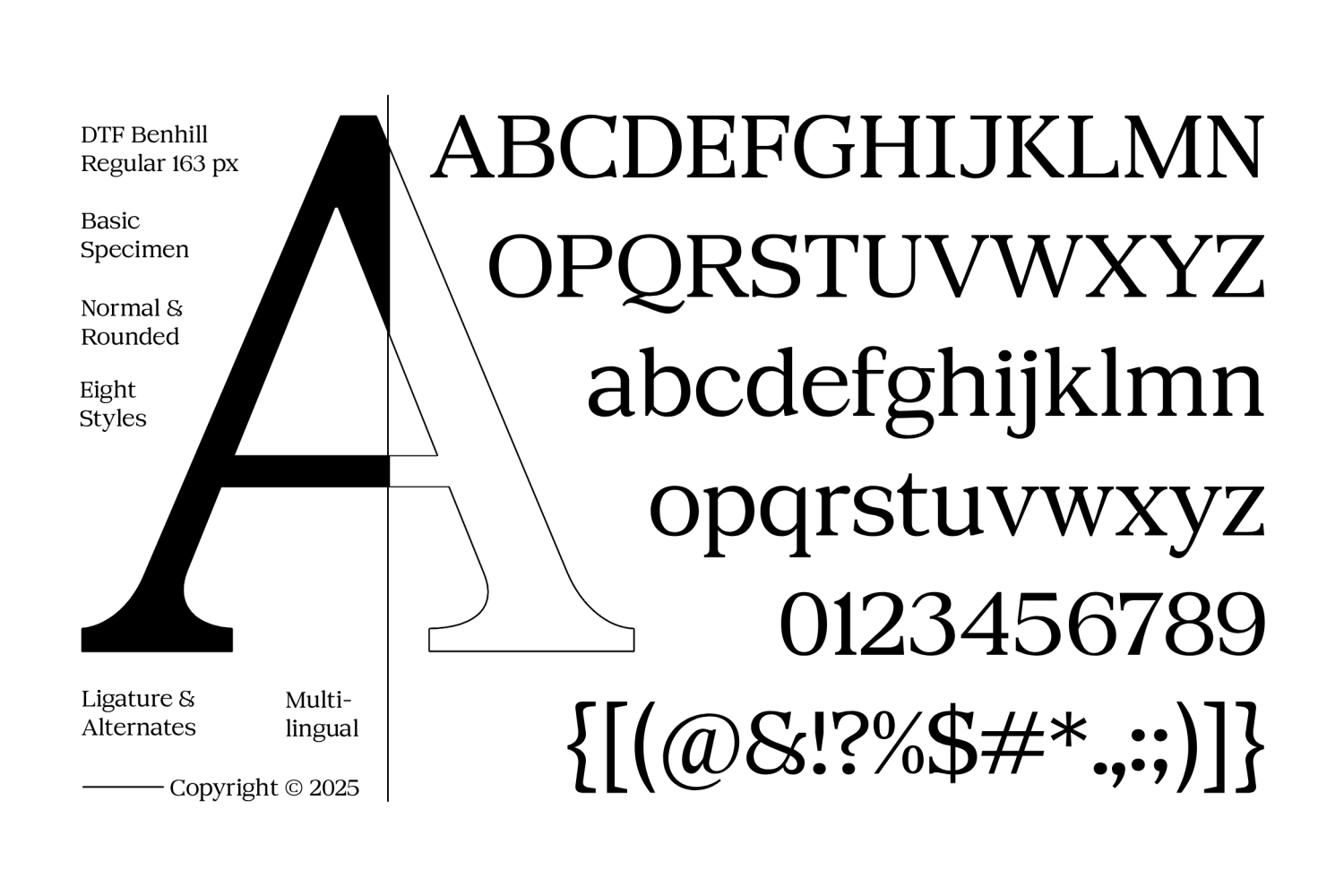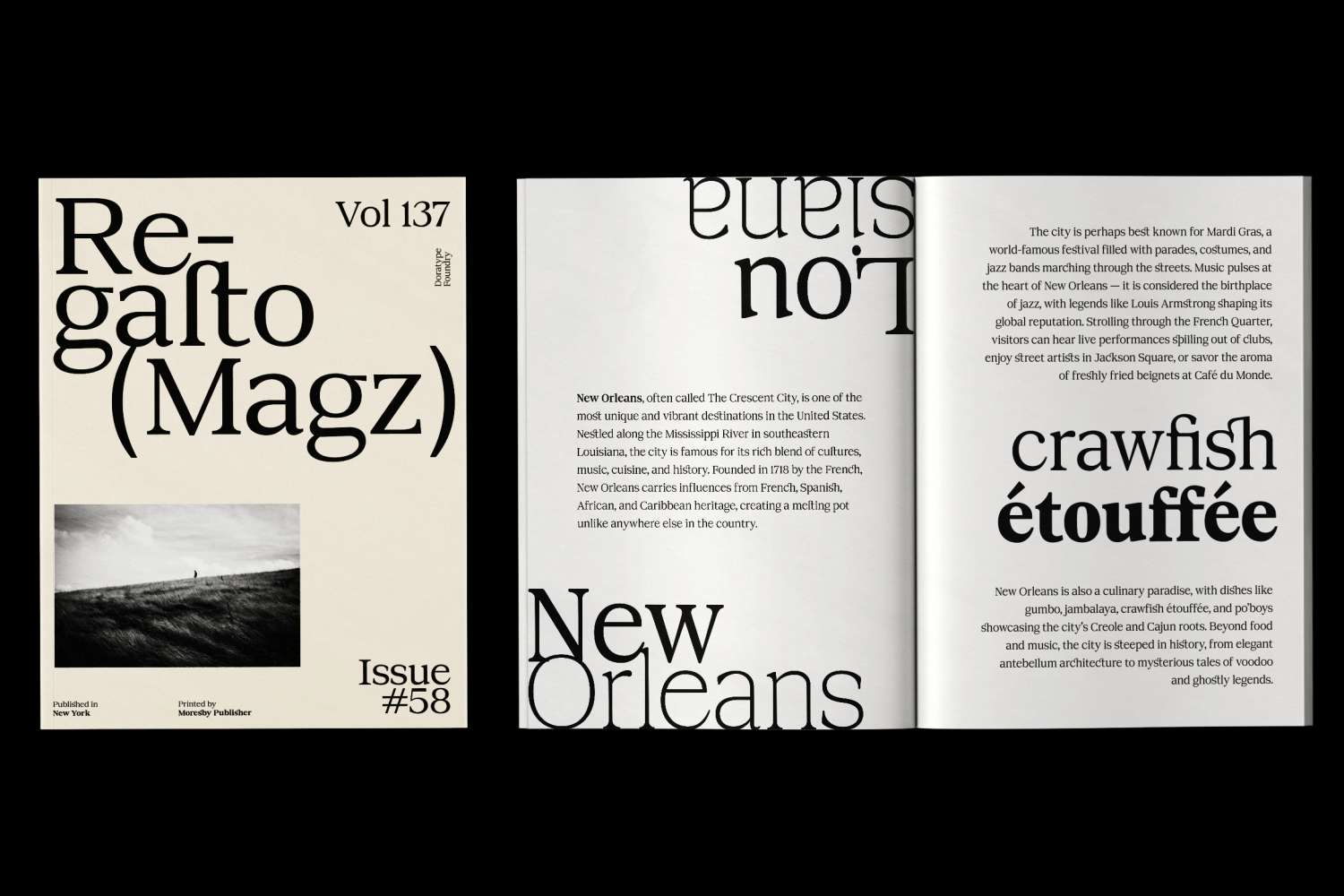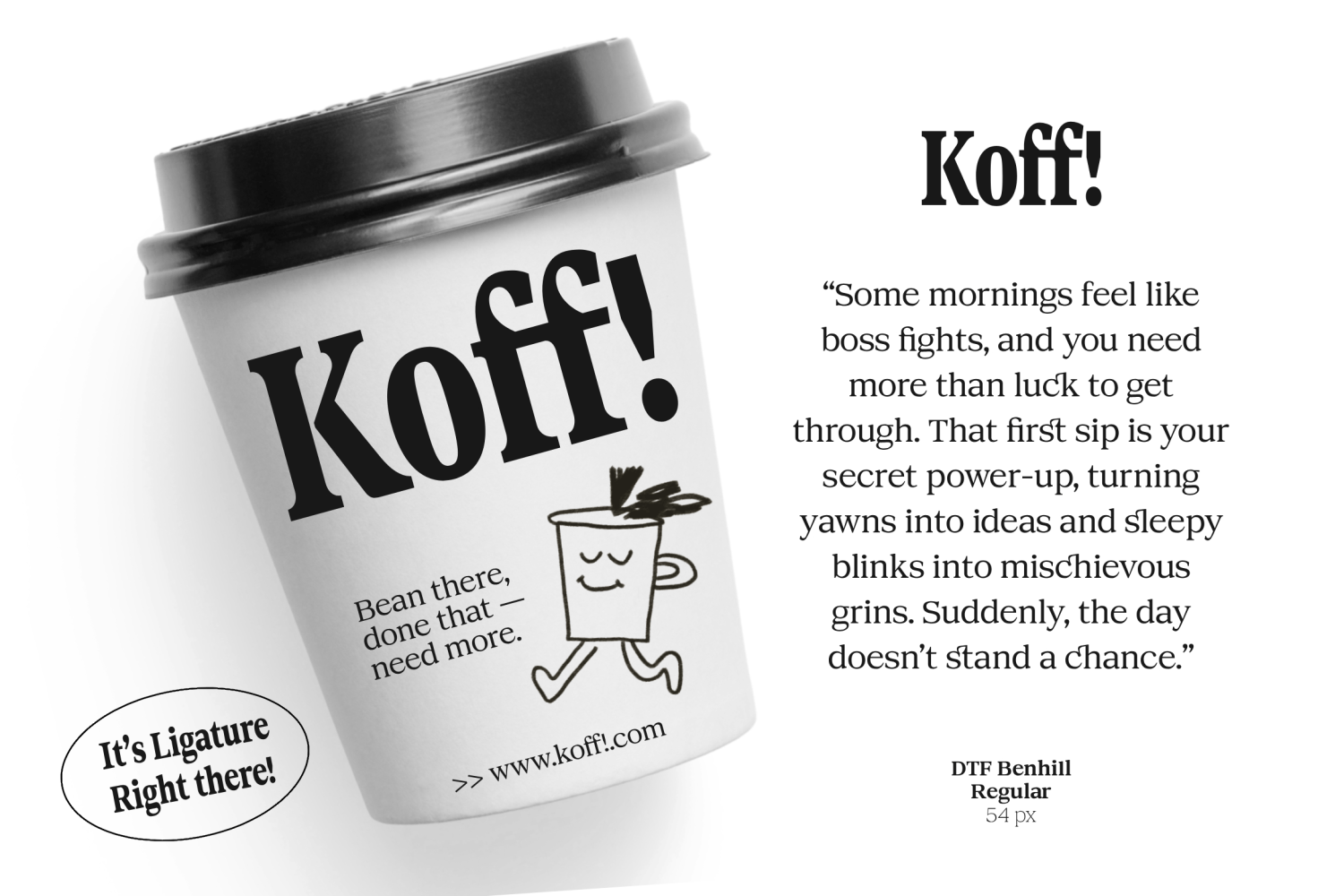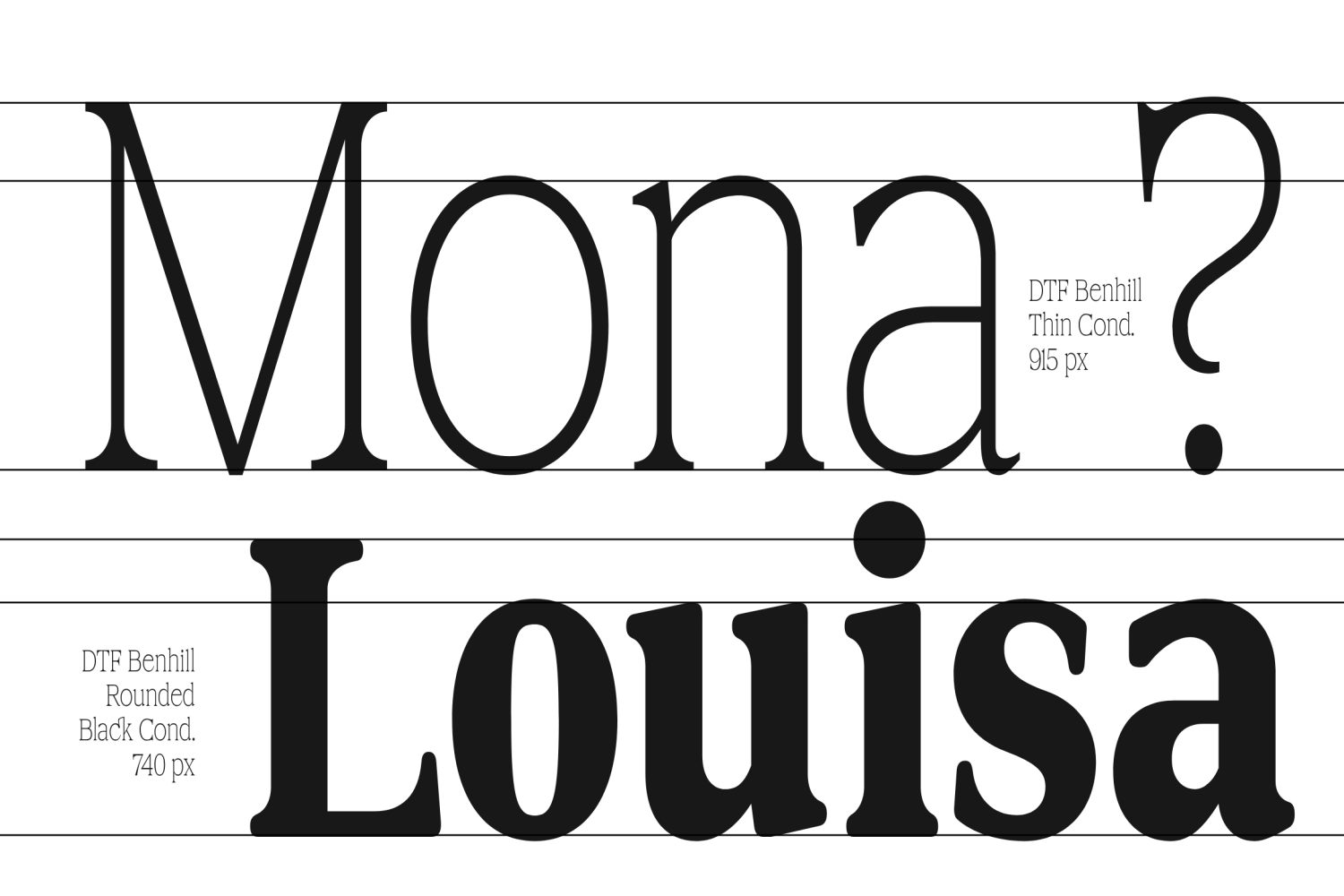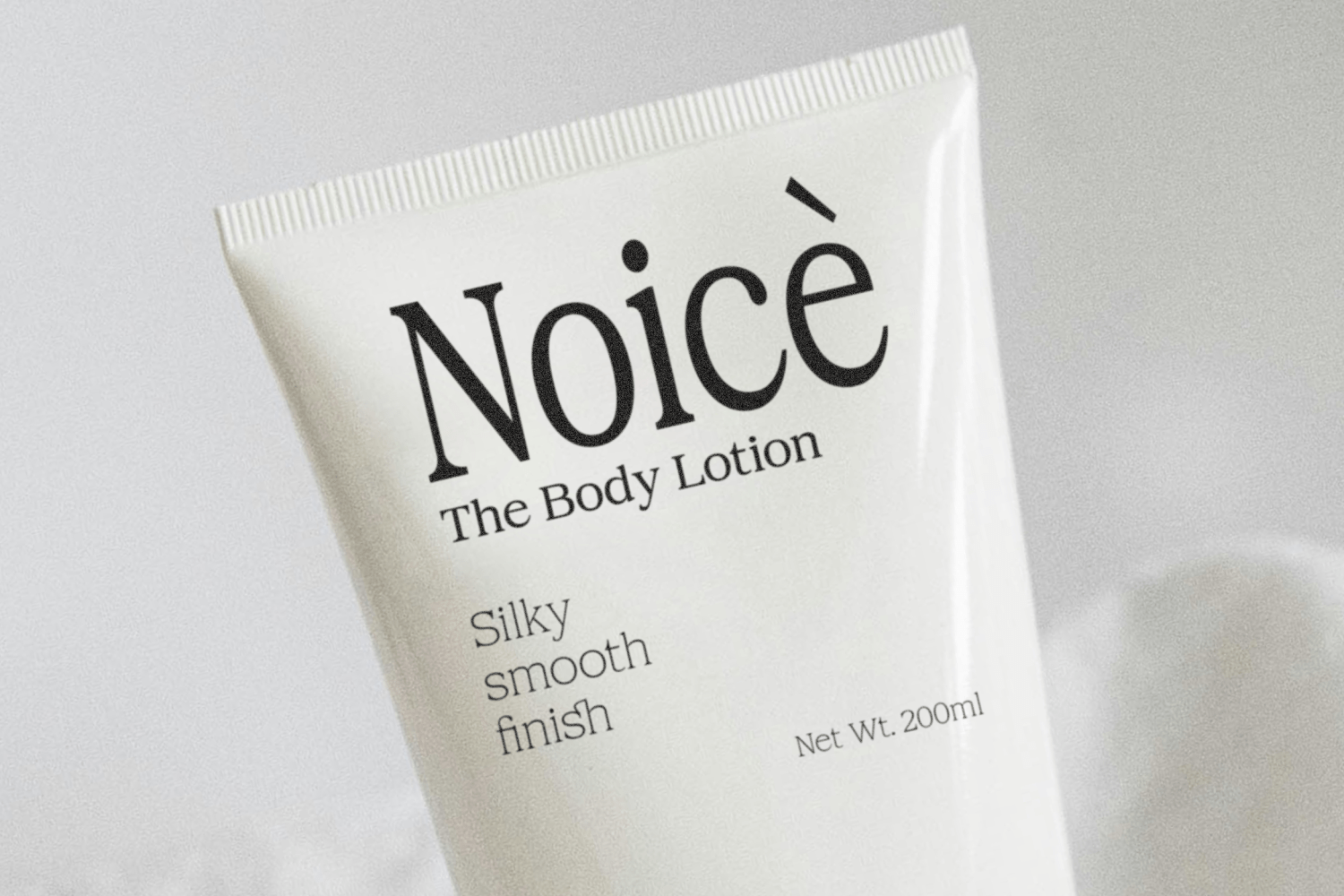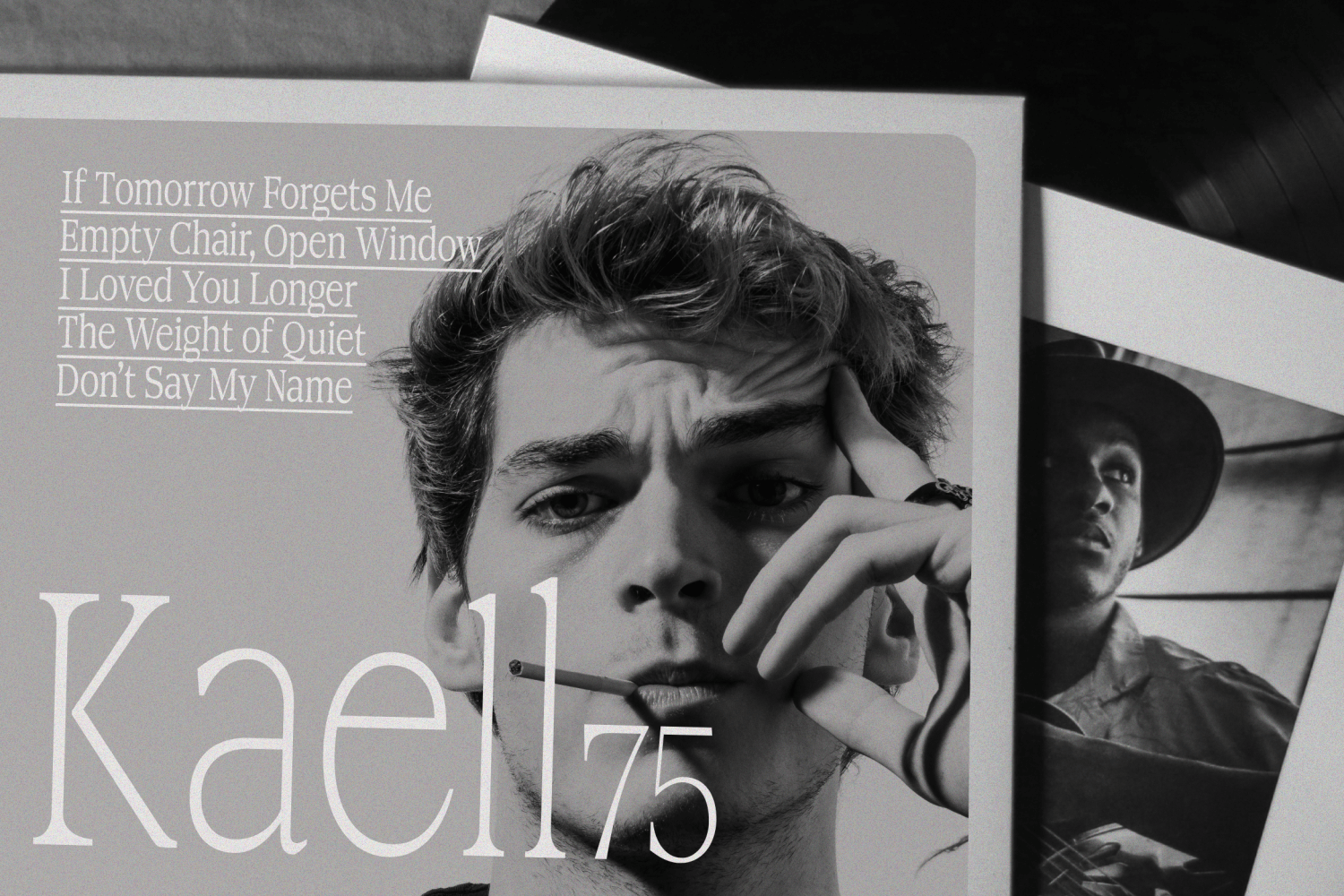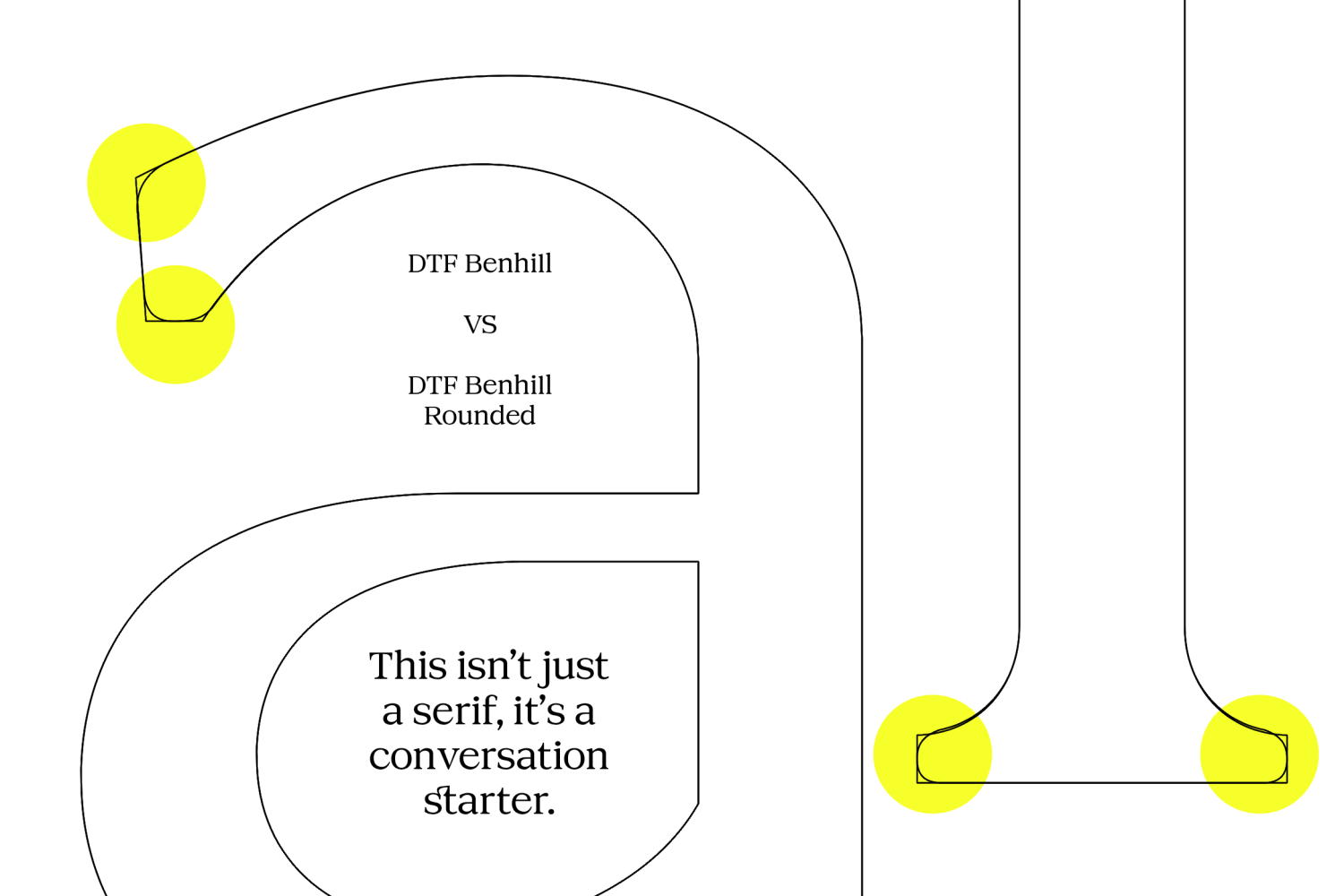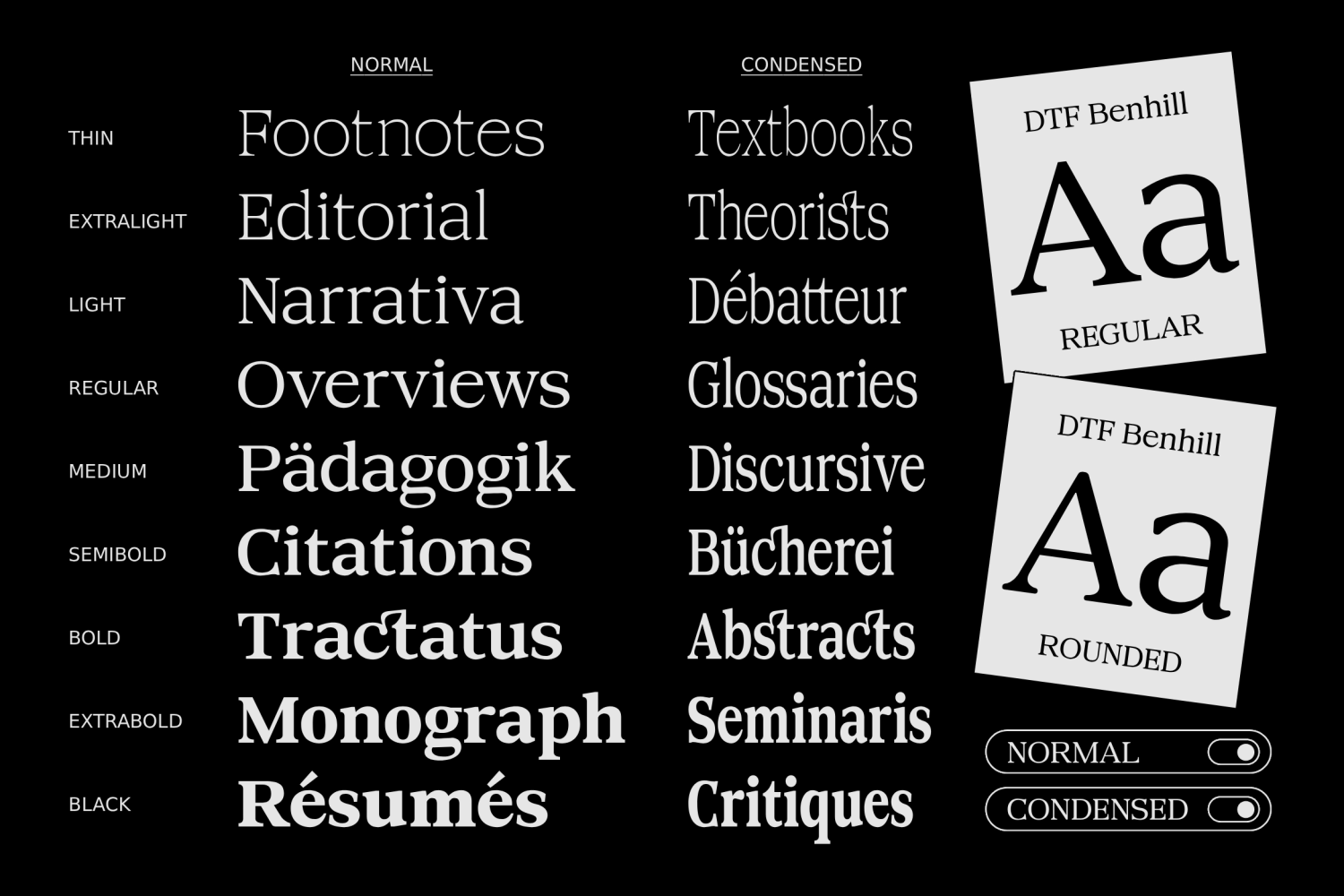
Benhill
Font Family by Dora Typefoundry
Benhill is a contemporary serif font family designed by Doratype Foundry. This font combines classic serif styles with a sharp, clean modern touch, resulting in elegant yet bold letterforms. Benhill comes in two main families—Normal and Rounded—each with a variety of styles and weights, making it highly versatile for a variety of design needs, from editorial and branding to digital displays.
The font comes in 18 styles, including Regular and Condensed variants, providing extensive options within the typographic hierarchy. Its strong serif design, combined with well-proportioned and legible letterforms, makes it an attractive choice for projects requiring a professional and sophisticated feel. With comprehensive style support and a balanced visual aesthetic, Benhill is an ideal font choice for graphic designers seeking a harmonious classic-modern feel.